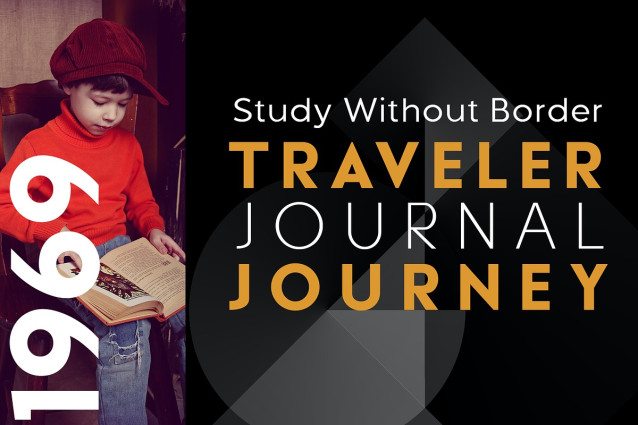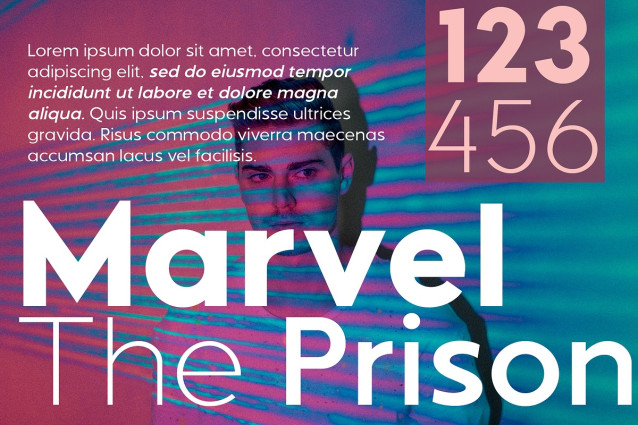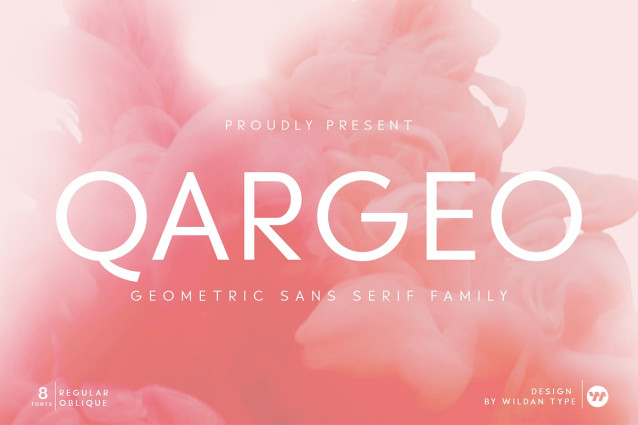
Qargeo Font Family
Qargeo Font Family is a sans-serif font family of 8 fonts, humanist crafted with geometric shapes and inspired by modern sans-serif typefaces. It’s minimal design and diverse font styles cater to all kinds of typography and graphic design work. Suitable for head and body text.